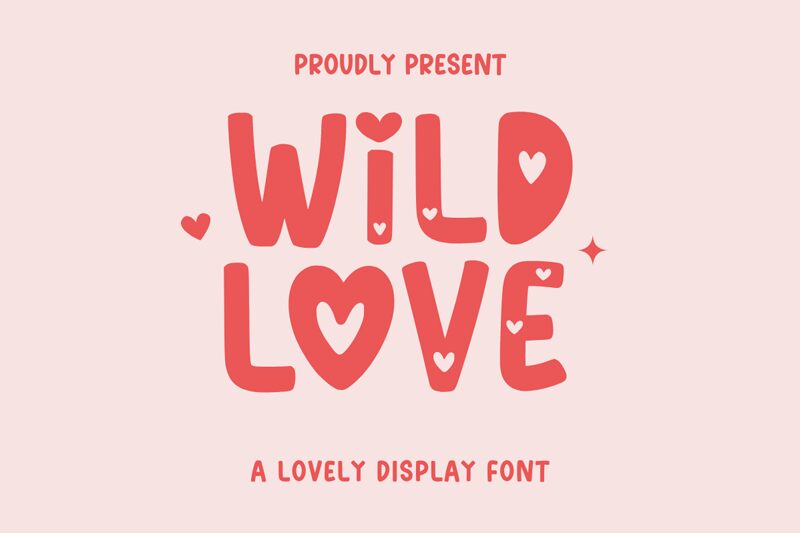
Wild Love font family by Muhammad Yafinuha, as its name suggests, expresses wild romance with unusual letters that appear more liberated, and in a sense, emotional with love motifs. Constructed as a holiday font, the designs of the 2 font styles are merged, complex, and yet structured enough to be suitably readable by both designers and the reader, a necessary addition to your selection for an artistic touch.
It’s all about love with this stylish font, so use it for projects that demand an emotional touch including wedding invitations and postcards, love novels and stories, valentine’s day cards, titles, and illustrations, as well as wallpaper and stationery projects. Although it already brings versatile letters, you can always match Wild Love with other elegant fonts for branding designs, packaging projects, social media posts, and others.